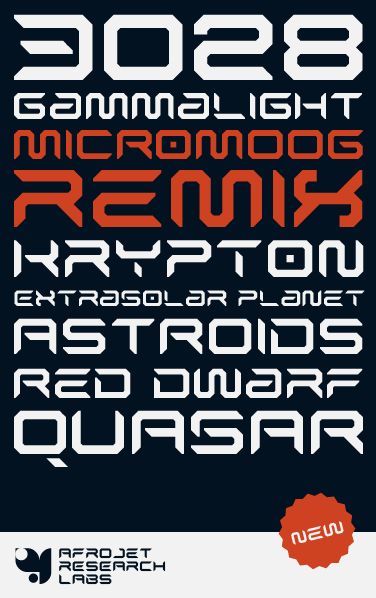
That's a hilarious description, but you're font is way better than that. :)
Excellent work, afrojet... I agree 100% with aphoria!
A very interesting variation of your underrated Micromoog font, with a lot of potential especially for the alternates available in the lower case.
It certainly deserves a better fortune than being used in a Michael Bay movie titles!
I love the internal logic of this font. It's a long way out and yet very legible.
Looks like the sequel is better than the original. I would watch it on IMAX.
I can see the Trance/ Dance fraternity feelin this. Great for cyber lovin music goers across the globe.
Looks great. Love the sample.